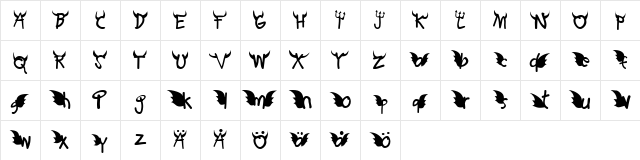
Redd or dedd Regular
Design Context for Redd or dedd
Redd or dedd is a composed and adaptable typeface that performs quietly and consistently across a wide range of design contexts.